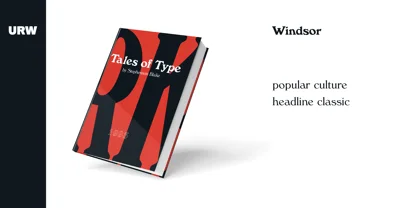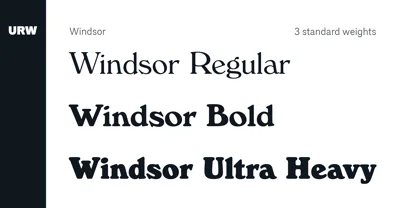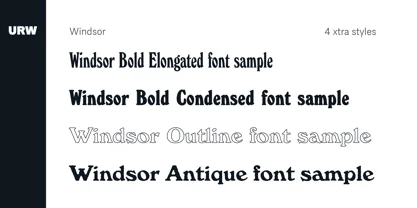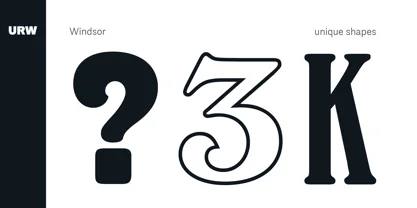
Windsor Font
A good typeface communicates tone before a single word is read. Windsor achieves this through the kind of restraint that lets content lead. The typeface brings a versatile sensibility to a broad range of creative disciplines, with consistent type colour across continuous text that holds up whether the work is print-first or screen-first.
In practice, Windsor proves particularly effective for logo design, packaging design, brand identity systems, product labels, social media graphics. Designers reaching for it find that the type decisions feel resolved rather than laboured — a useful quality when client timelines are tight.
The range of applications extends to annual reports, advertising campaigns, poster creation, editorial layouts. That breadth is deliberate: the proportions and spacing were stress-tested across a wide range of mock briefs before the typeface was finalised.
Windsor sits comfortably alongside both classic and contemporary typefaces in multi-font hierarchies. It takes direction rather than competing for attention — a quality that experienced designers know is harder to find than it appears.
Motion designers building title sequences and lower thirds find Windsor a reliable choice for projects that demand both personality and restraint. The design avoids the self-conscious quirkiness that dates quickly, settling instead for considered distinctiveness that holds up over time.